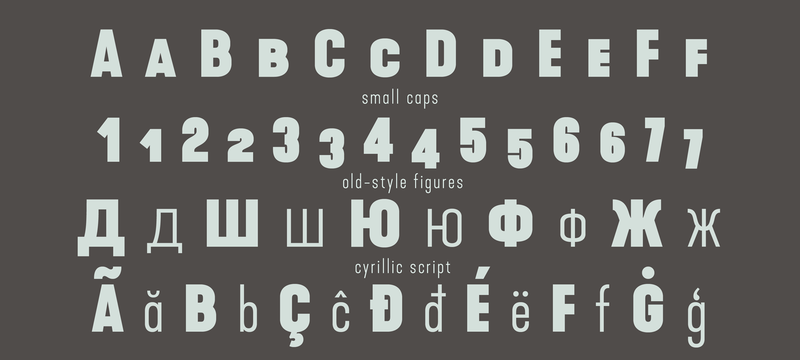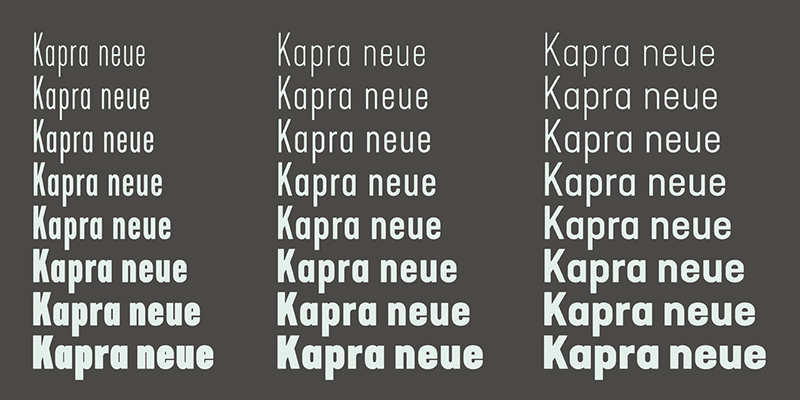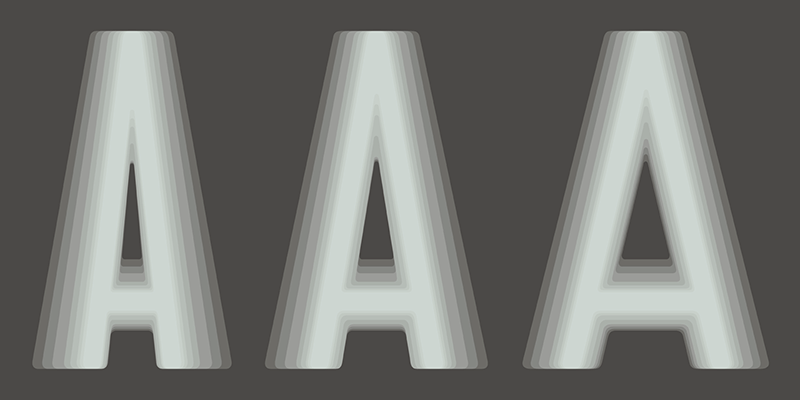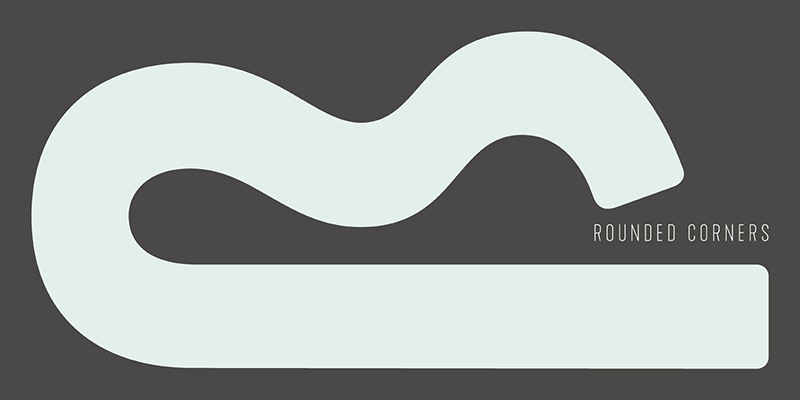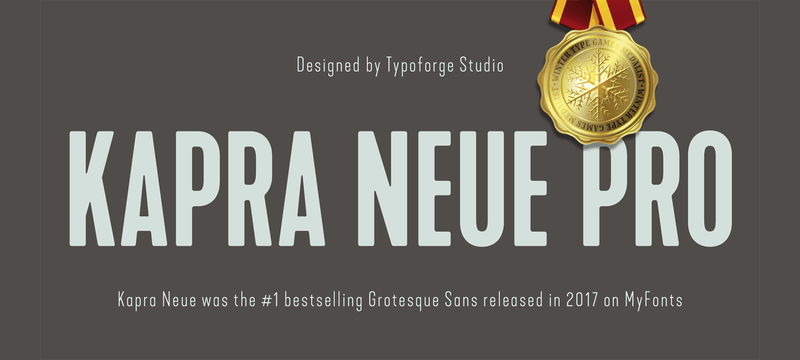
Kapra Neue Pro Font Family: 96 Sans-Serif Weights & Condensed To Expanded Variations
Today we’ve brought you an exclusive limited time promo for Kapra Neue Pro: a best selling grotesque-sans font family from Typeforge with 96 weights & a wide range of instances, from condensed to expanded, with rounded corners or sharp ones.
This typeface is perfect for display as well as body copy, you can use it for all kinds of prints & digital designs, from posters and magazines, to headlines, logos, etc, and will prove a great addition to your typography collection!
- Complete 96 sans-serif font variations
- Weights contain a wide range of instances, from condensed to expanded
- Supports over 30 languages
- Includes small caps, cyrillic script & old-style figures